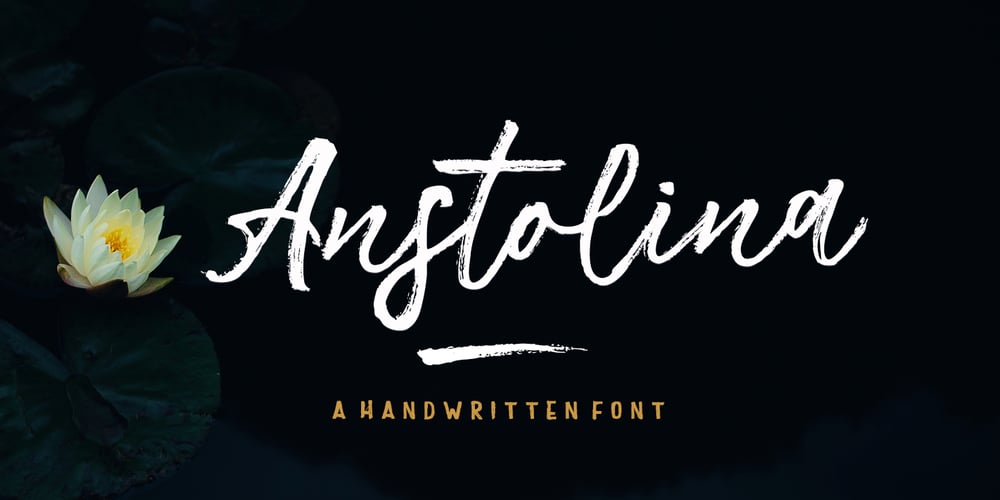
Anstolina
Anstolina font
Anstolina Font Family was designed by Yur Lis and published by Stripes Studio. Anstolina contains 2 styles and family package options. Hi, Introducing the latest styles Anstolina with the kind of modern hand scratches, I hope you are interested in this font, if you want to use for your work this font can be used easily and simply because there are a lot of features in it to contain a complete set of letters lower and uppercase letters, assorted punctuation, numbers, and multilingual support. font also contains several ligatures and alternate style Stylistic.